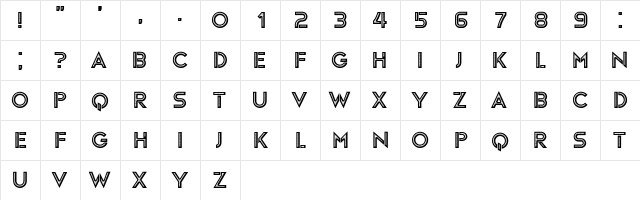
Havetime Regular
Design Context for Havetime
Havetime is a composed and adaptable typeface that performs quietly and consistently across a wide range of design contexts.